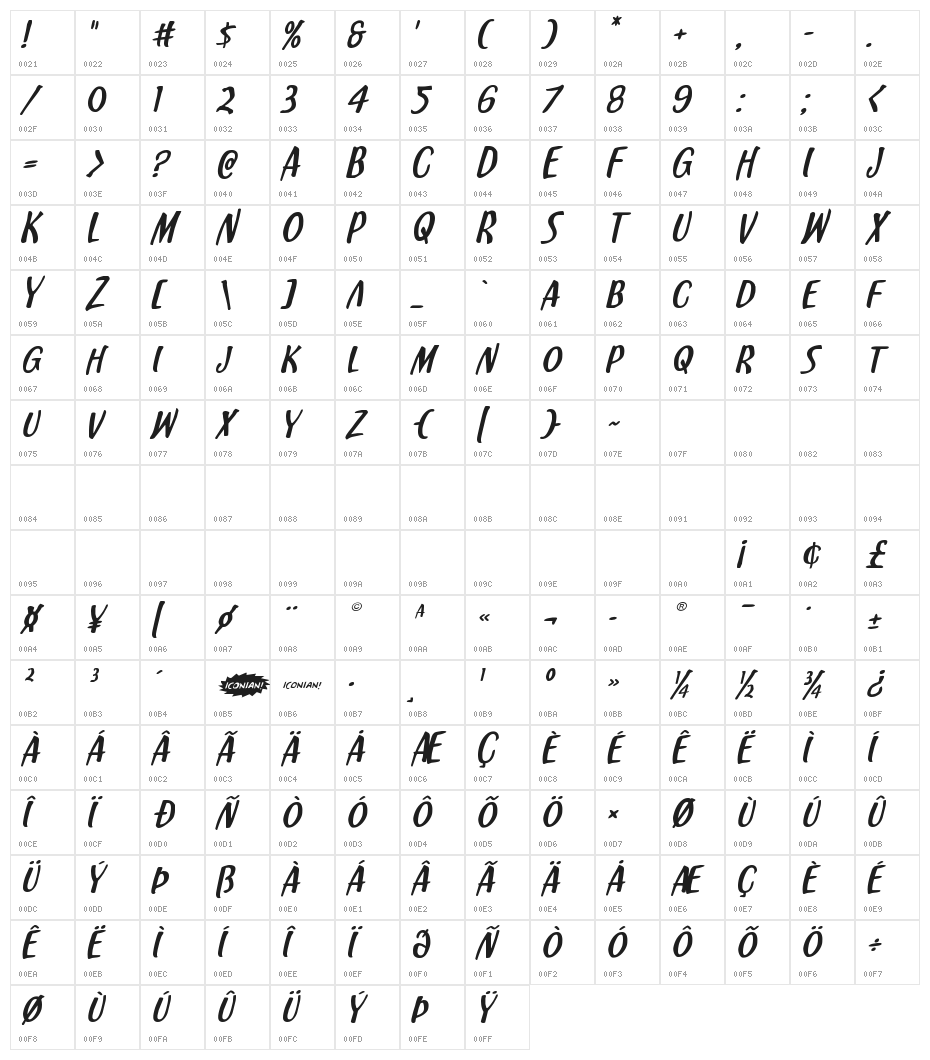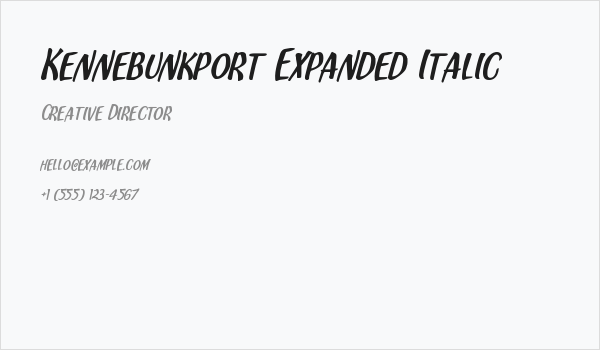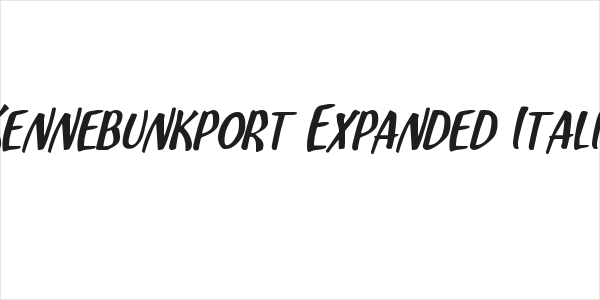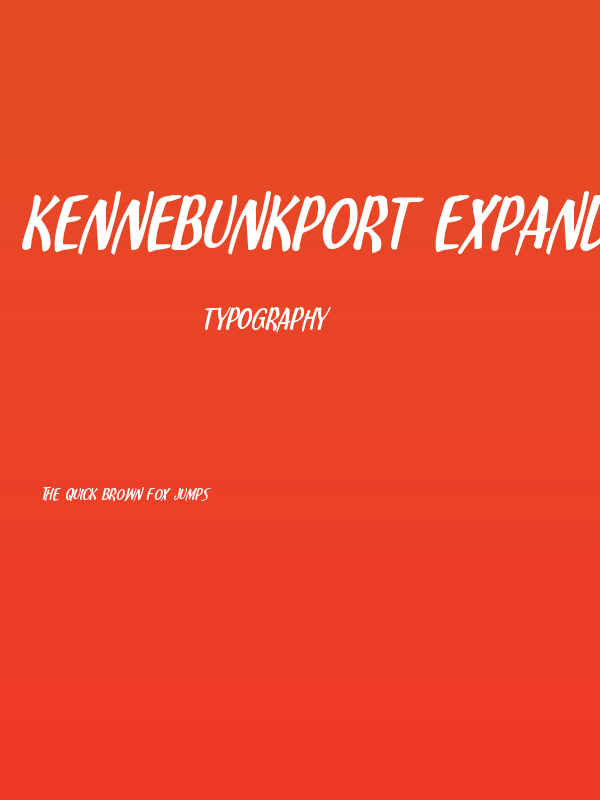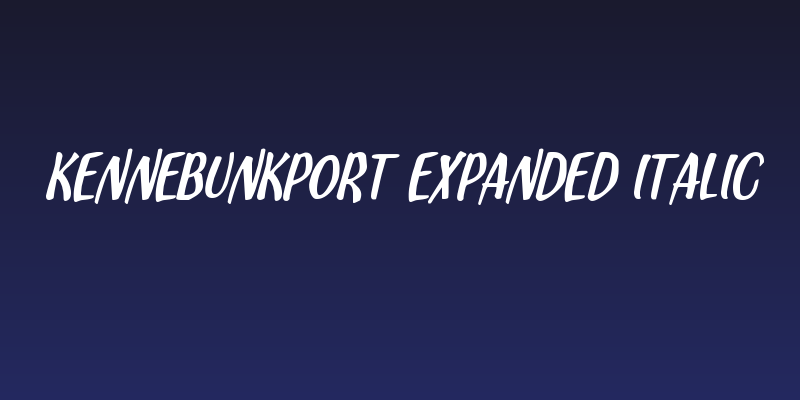
Kennebunkport Expanded Italic Font
Kennebunkport Expanded Italic Description
This font features a bold, italicized style with an expanded width, giving it a dynamic and energetic appearance. The characters are slightly slanted, enhancing the sense of movement and fluidity. The strokes are thick and consistent, providing a strong visual impact. The uppercase and lowercase letters maintain a cohesive design, with rounded edges and smooth curves. Numbers and special characters are designed to match the overall style, ensuring uniformity across all elements. This font is well-suited for projects that require a bold and expressive typeface.
| Proposed Projects | Ideal for branding, advertising, posters, and any design that requires a bold statement. |